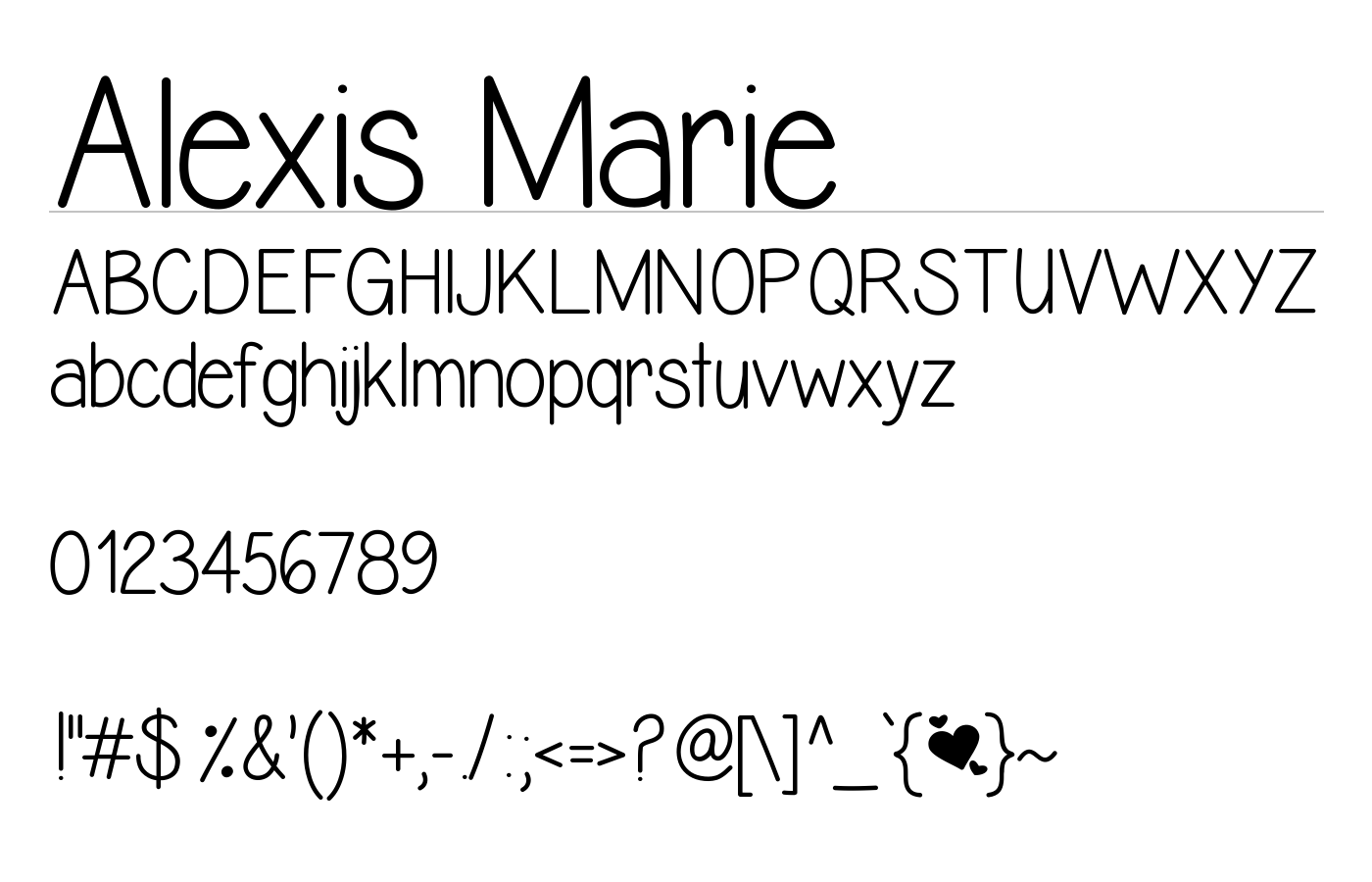
Alexis Marie is a slender, playful sans serif font with a light weight and tall x-height that conveys a friendly and casual feel. Its thin strokes, simple geometric shapes, and rounded curves, along with charming details like the heart-shaped ligatures, make it perfect for youthful branding, invitations, and creative projects that want a warm and approachable touch. This font works well in headlines and short text where a whimsical yet clean style is desired.
Alexis Marie Font
About Alexis Marie Font
| Font family | Alexis Marie Font |
| Designer | Vanessa Bays |